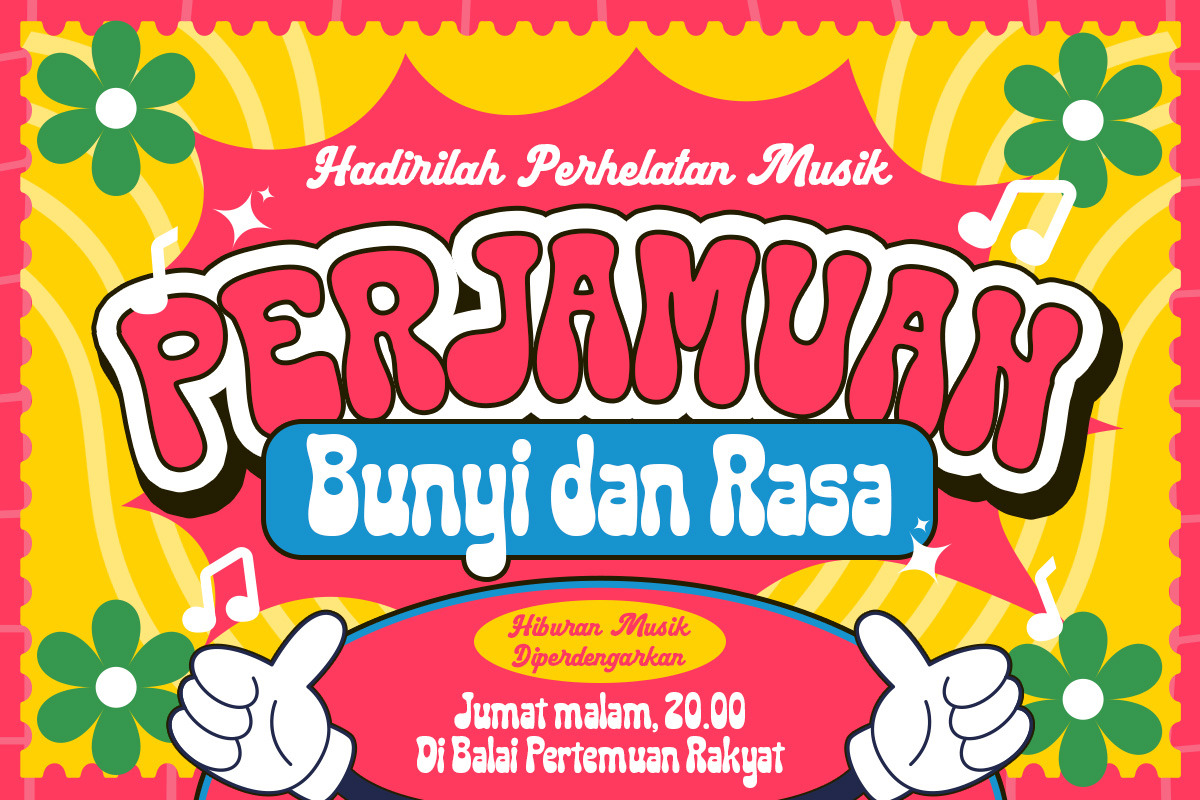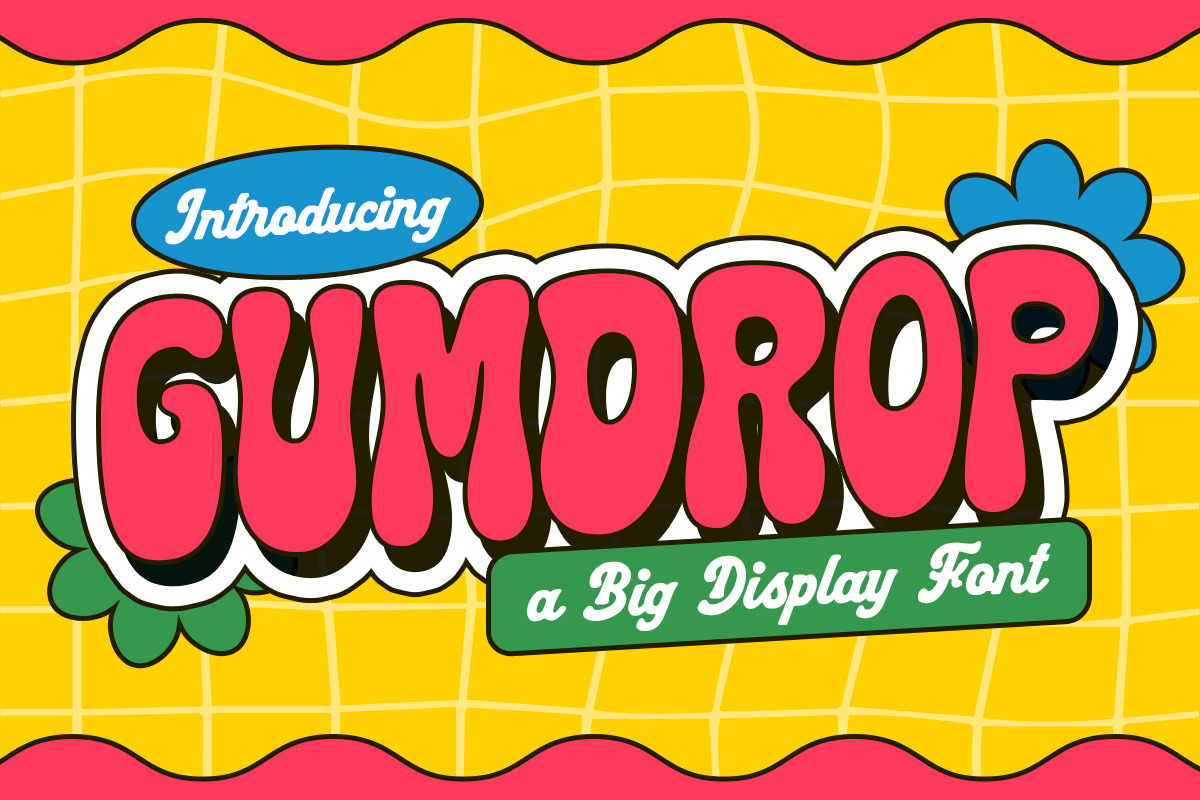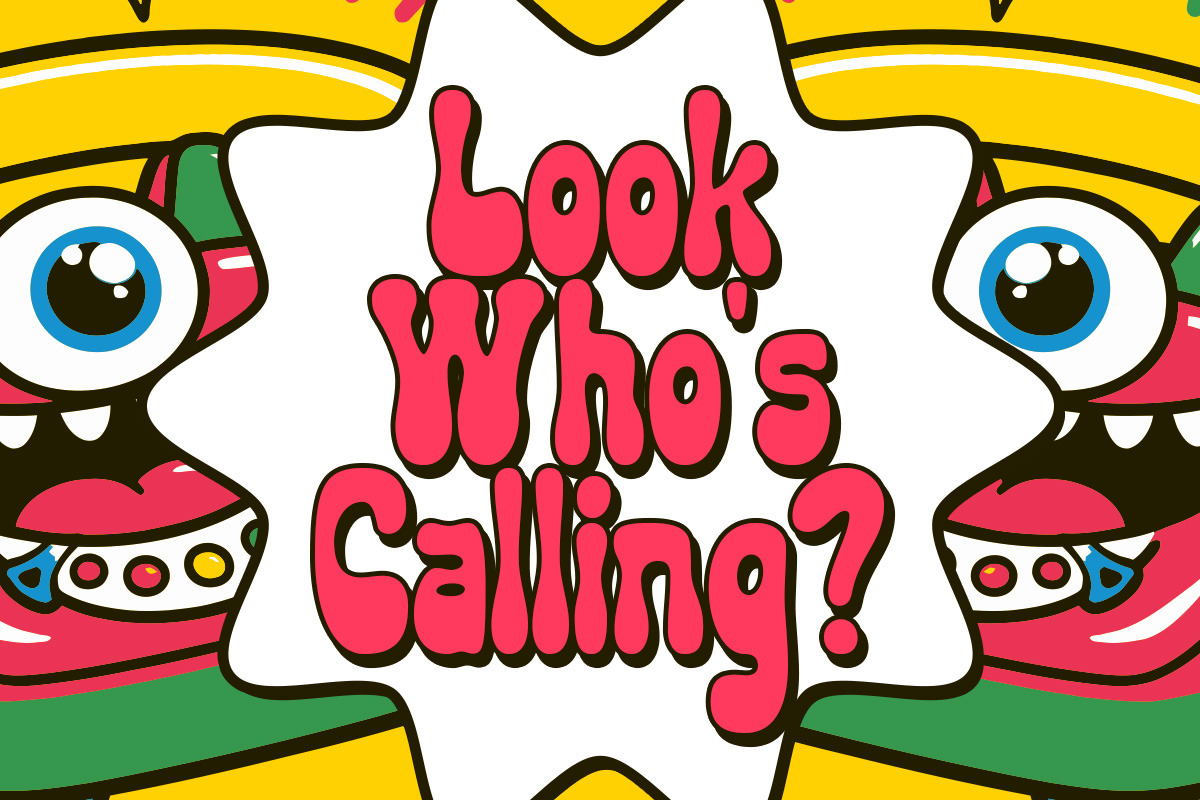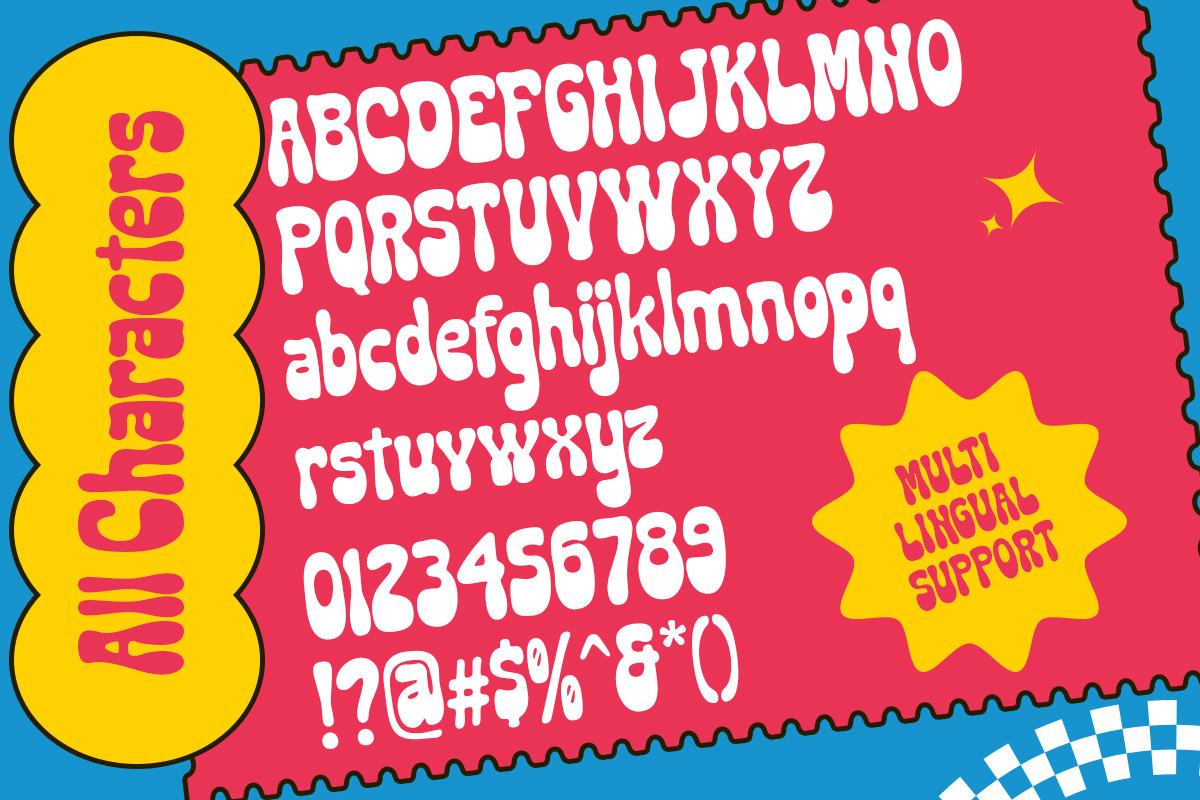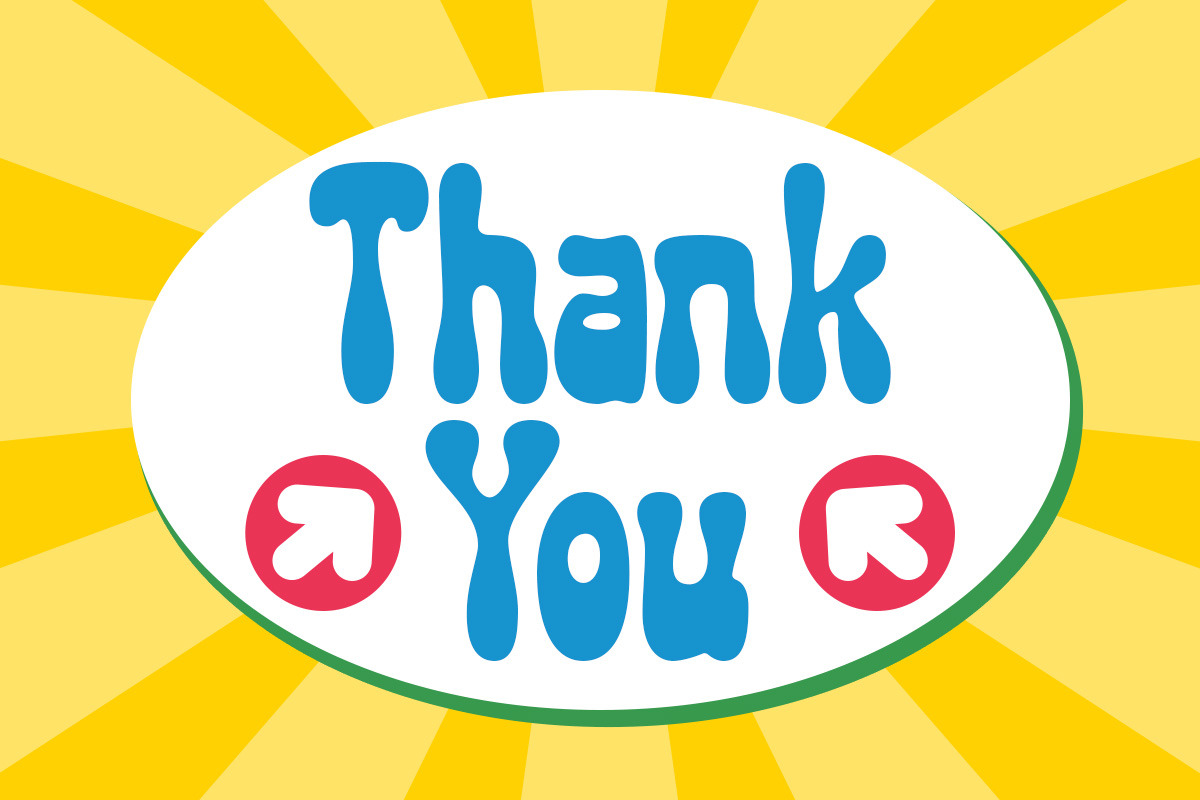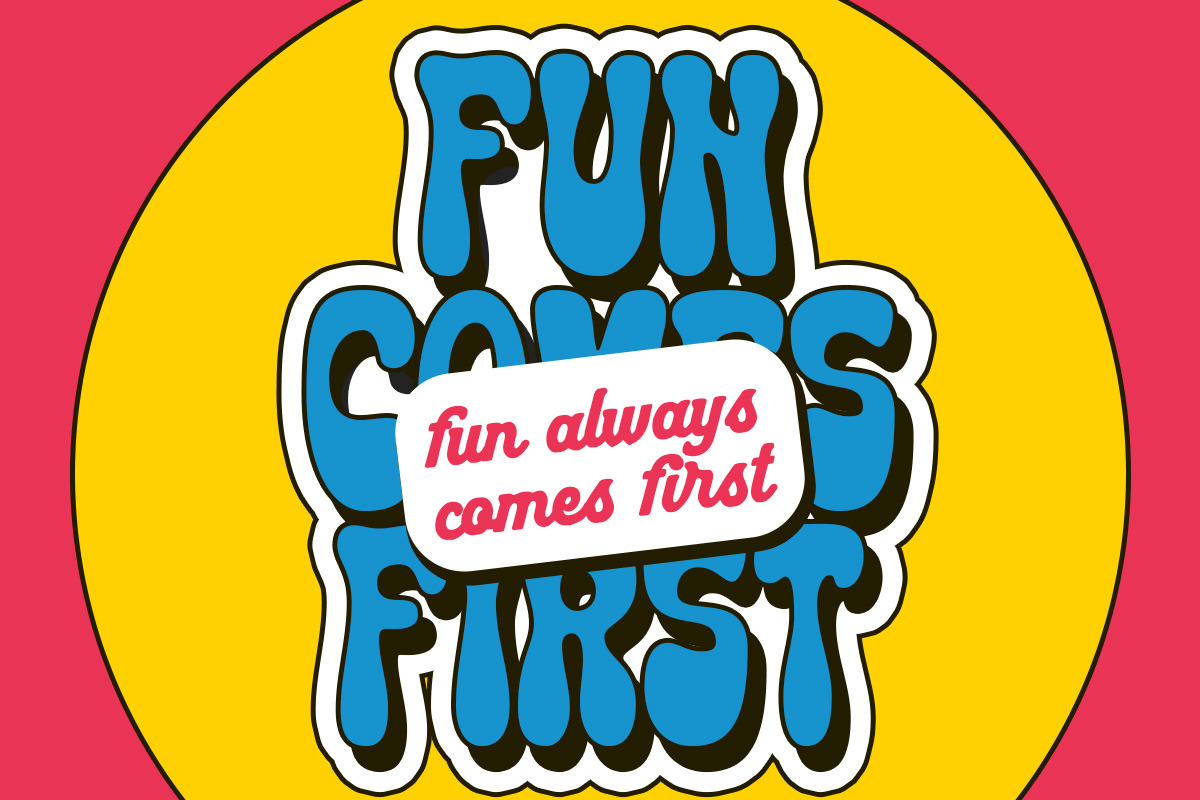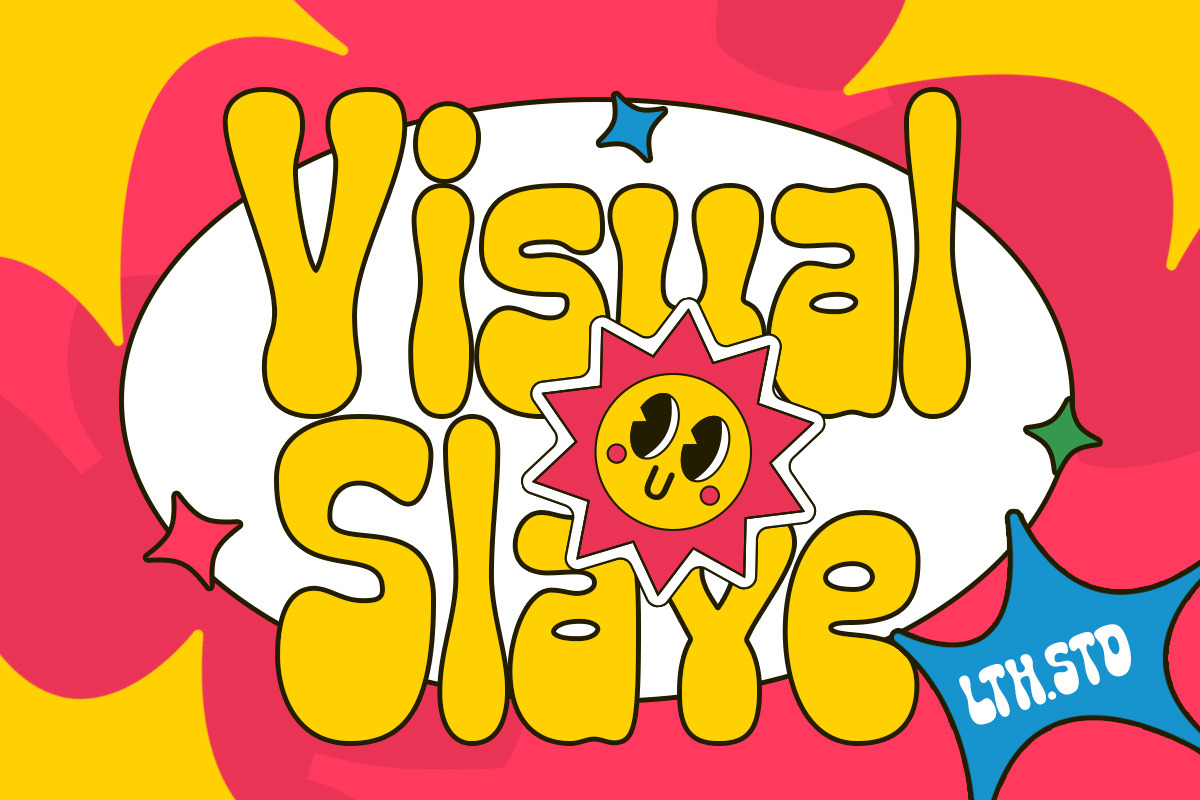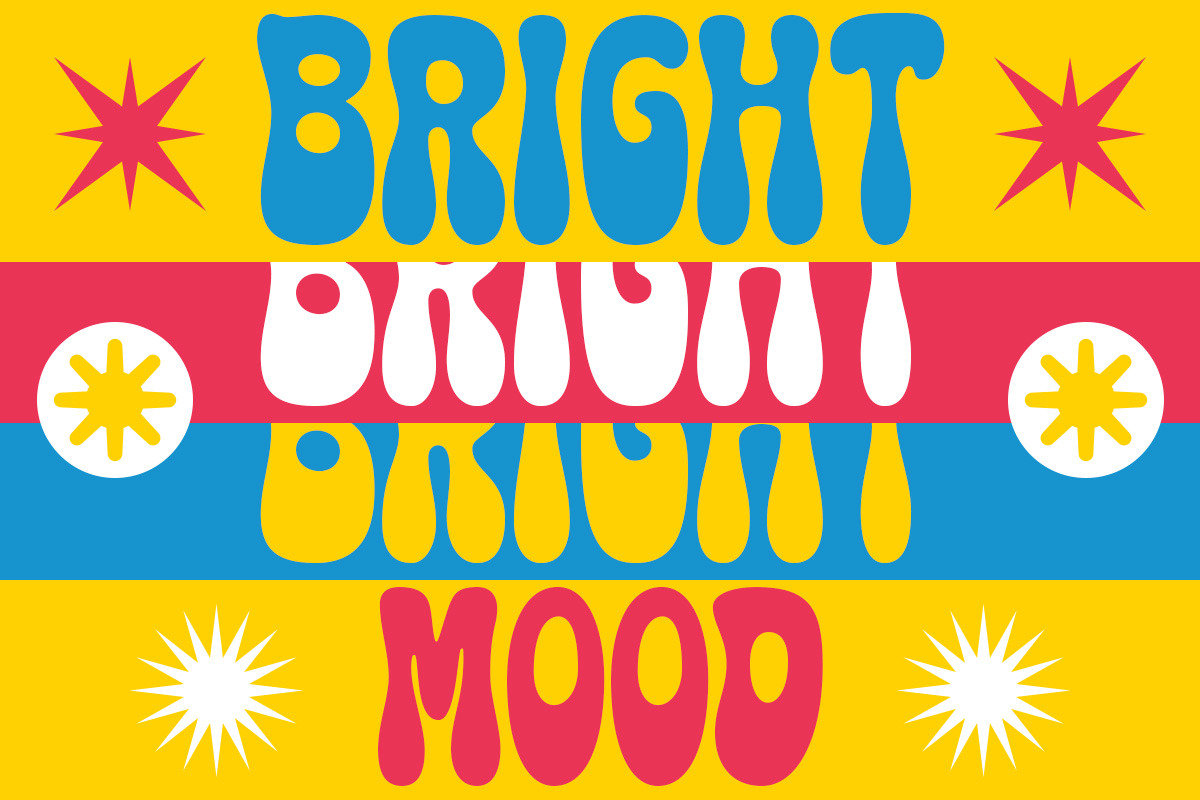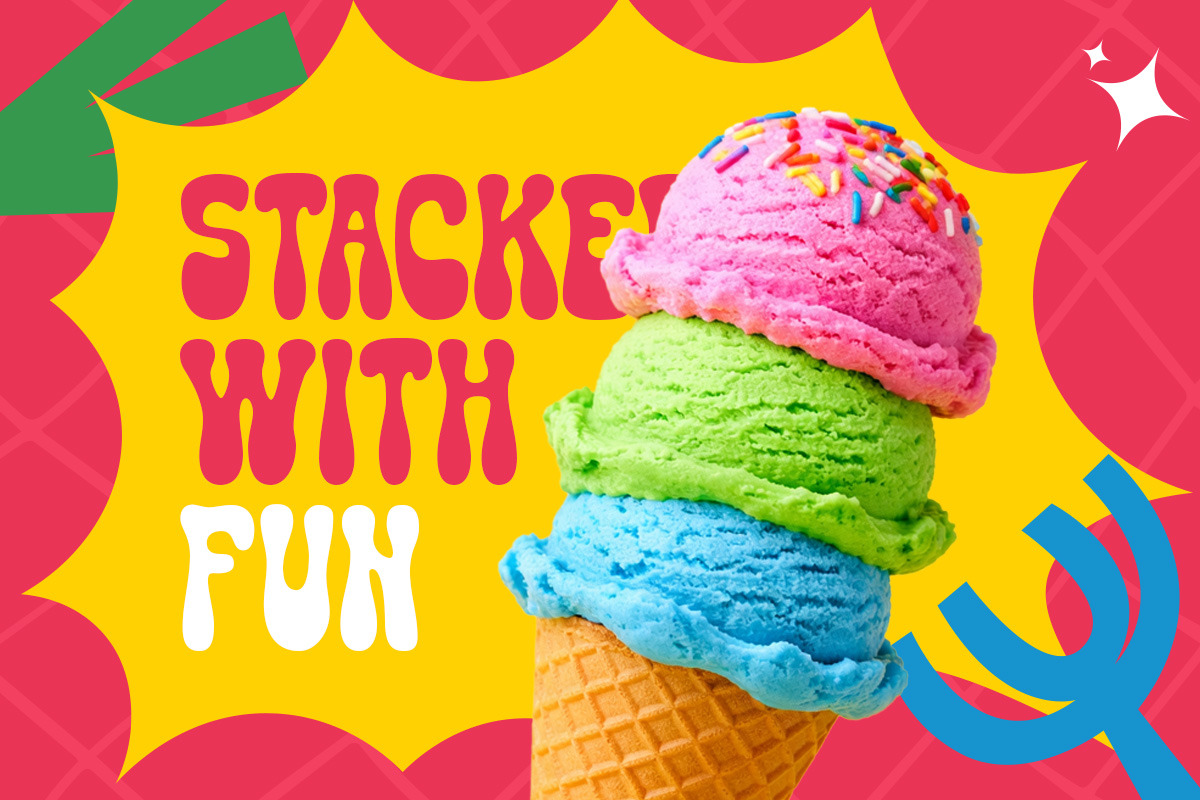
Gumdrop Pop Retro Bubble Font
Gumdrop is a display font that features thick strokes and bubbly forms, creating a strong and joyful presence. the look feels retro-inspired, cool, and full of energy, making it perfect for attention-grabbing designs. ideal for headlines, posters, packaging text, stickers, and colorful visuals that need a happy and standout tone.